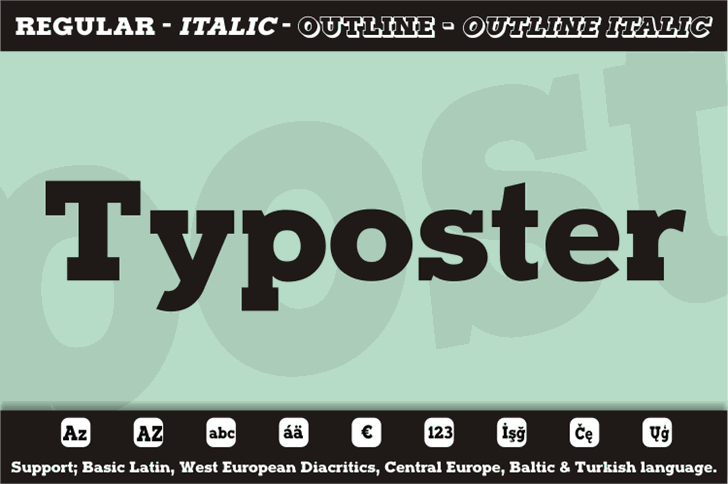
Free Typoster Font
Introducing you to the absolutely beautiful free typoster font. Font Space has created this amazing and beautiful free font. This is absolutely fancy font so you can easily make world-class designs.